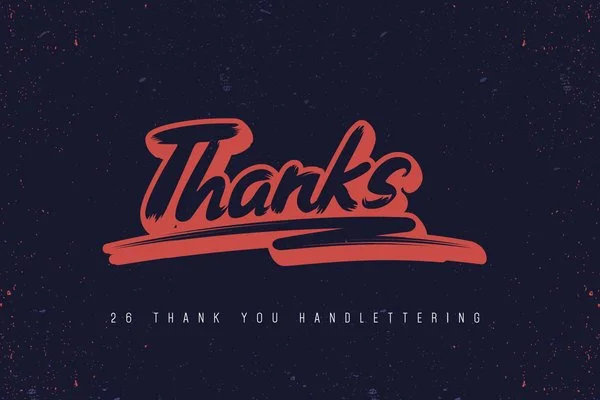
Thank You Dingbats Font
Thank You Dingbats Font Features 26 dingbats in a collection for you to express your custom Thank You designs such as cards, posters, notes and more! Pump up your artwork and designs with Thank You Dingbats today!